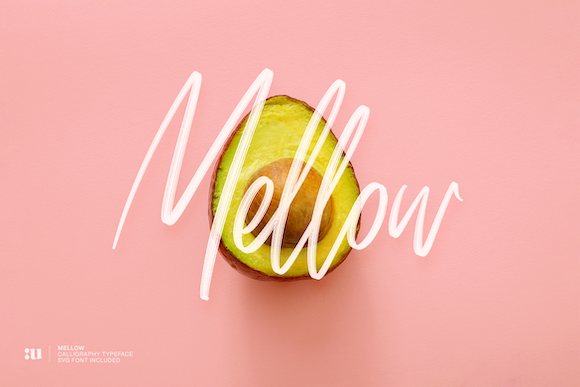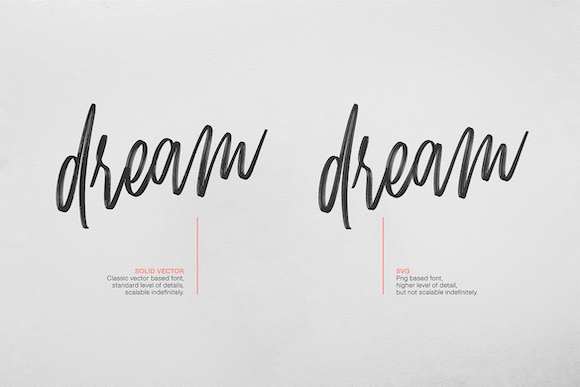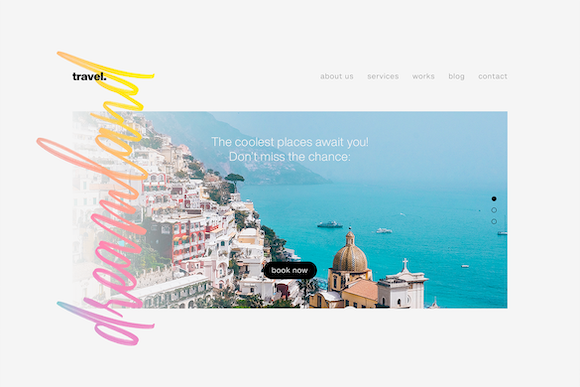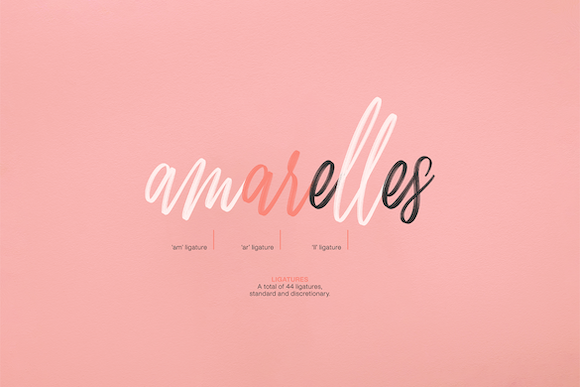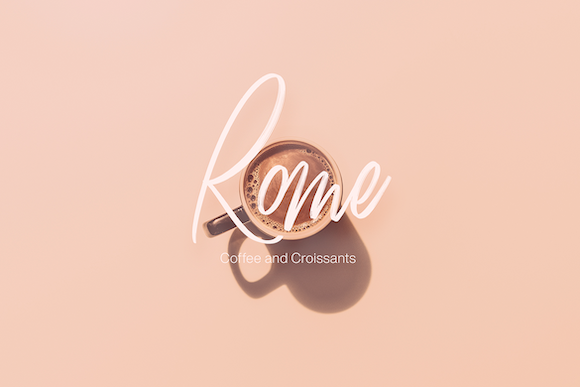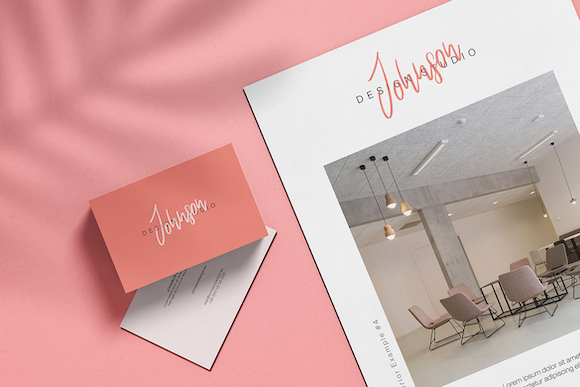
HomeScript FontsMellow Font Script Fonts Mellow Font FacebookXPinterestWhatsApp Mellow Font Poster 2 Mellow Font Poster 3 Mellow Font Poster 4 Mellow Font Poster 5 Mellow Font Poster 6 Mellow Font Poster 7 About Mellow Font Mellow is a stunning handwritten font with a cool vibe. Use it to add an authentic feel to any design project! DOWNLOAD ON CREATIVE FABRICAThis font is sold and delivered by Creative Fabrica. Font Canyon may earn a commission if you buy through this link. People also explored Rositha Font Suklax Font Erotick Fantasy Script 2 Font Magnolia Craft Font Mermaid Font Simple Love Guandhol Bold Font Vintage Font 317 0 TagsMellow Font Previous articleKaylland FontNext articleLucky Layla Font LEAVE A REPLY Cancel reply Comment: Please enter your comment! Name:* Please enter your name here Email:* You have entered an incorrect email address! Please enter your email address here Website: Save my name, email, and website in this browser for the next time I comment. Personal Use Free Autumn Flowers Font Personal Use Free Read more about this font Squealer Personal Use Free Read more about this font Darla Personal Use Free Read more about this font Retro Free Personal Use Free Read more about this font BLOG Using Fonts in Digital Marketing: Tips to Strengthen Your Brand Identity In the realm of digital marketing, every visual element plays a crucial role in shaping a brand's identity, and fonts are no exception. The... Free vs Paid Fonts: Why Investing in Premium Fonts Is Worth It Best Fonts for T-Shirt Design – Top 2025 Picks To increase your work productivity, choose the most readable fonts.